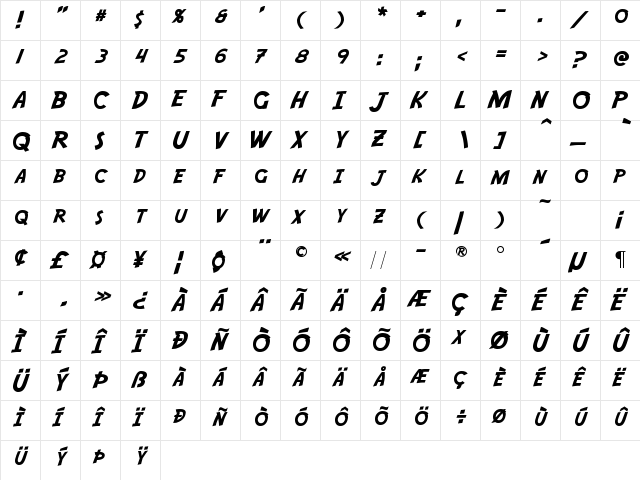
Adventure Regular
| Foundry | Neale Davidson |
| Designer | Neale Davidson |
Design Context for Adventure Typeface
Adventure takes a measured approach to typography — its balanced proportions and neutral character make it a reliable workhorse for both digital and print work.